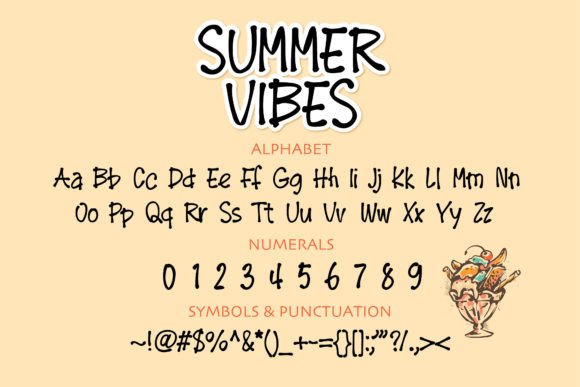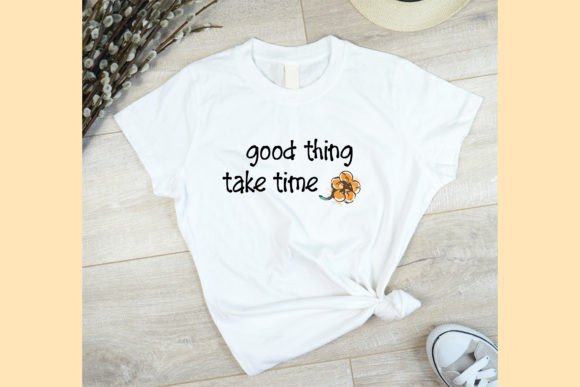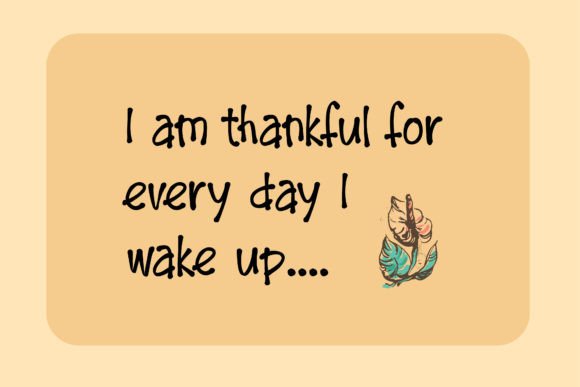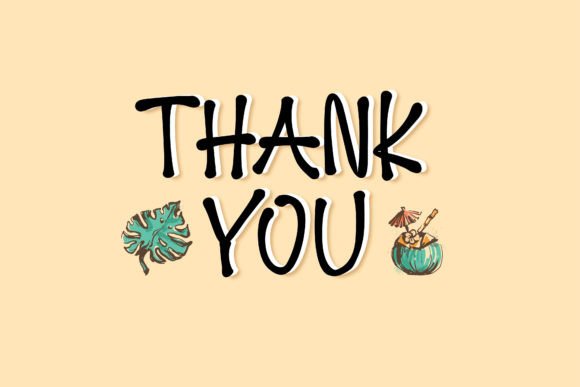
Summer Vibes Font
About Summer Vibes Font
Introducing “Summer Vibes,” a cute and flexible handwritten font that brings a natural and unique style to your creative projects. This font’s versatility allows it to seamlessly adapt to a wide range of designs, making it an excellent choice for various applications. Dive into the beauty of this font and explore its endless variations, as it looks stunning on wedding invitations, thank-you cards, quotes, greeting cards, logos, business cards, and any other design in need of a charming handwritten touch.
The natural and unique style of “Summer Vibes” sets it apart, adding a touch of authenticity and warmth to your designs. Its handwritten charm brings a sense of playfulness and approachability, making it suitable for a myriad of creative applications.
For wedding invitations, “Summer Vibes” adds a romantic and personal touch. The font’s cute and flexible nature allows it to complement various wedding themes, enhancing the overall aesthetic of the invitations.
Thank-you cards become more heartfelt and genuine with the use of “Summer Vibes.” The handwritten style adds sincerity to your messages, making expressions of gratitude more personalized and visually appealing.
Quotes and greeting cards are elevated by the charming design of “Summer Vibes.” The font’s flexibility allows you to experiment with different variations, creating eye-catching and memorable designs for various occasions.
In the realm of branding, “Summer Vibes” is a standout choice for logos and business cards. Its cute and flexible nature adds a friendly and approachable element to your brand identity, making it more relatable to your audience.
In summary, “Summer Vibes” is not just a font; it’s a creative tool that brings cuteness and flexibility to a variety of design projects. Let its natural and unique style enhance your wedding invitations, thank-you cards, quotes, logos, and more, as you explore the endless variations and have fun creating with this beautiful handwritten font.